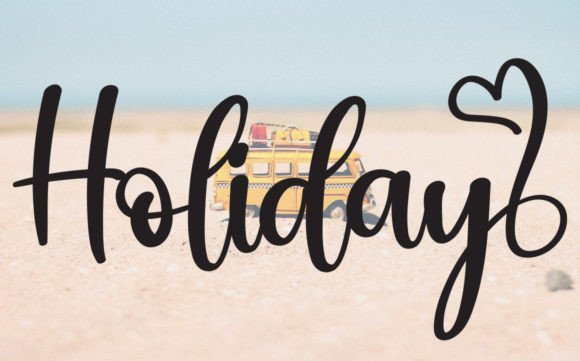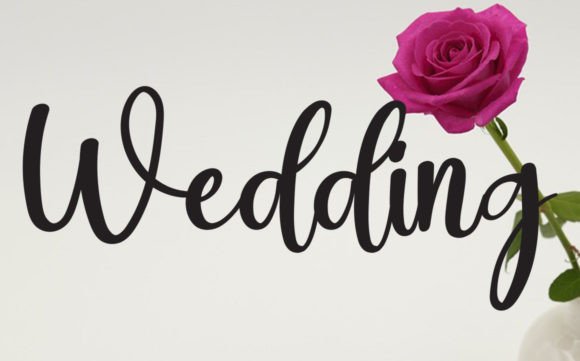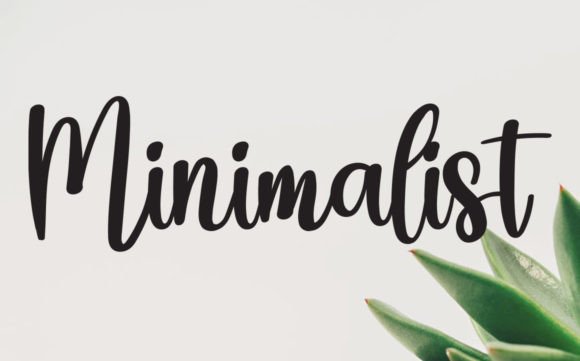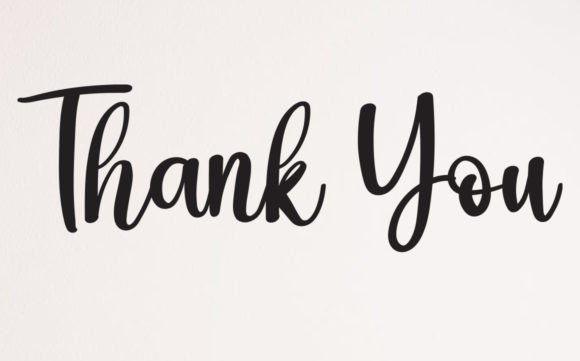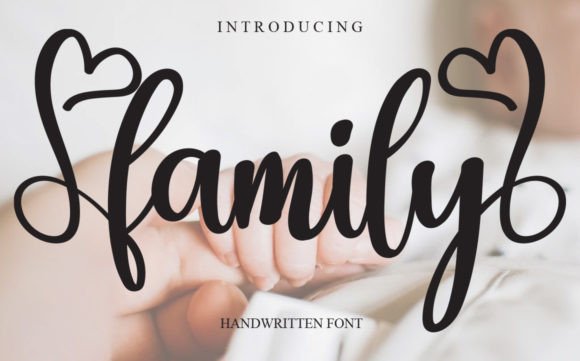
Introducing Family Font: The Sweet and Romantic Handwritten Font for Your Creative Projects
Are you a designer or crafter looking for a font that exudes warmth, love, and elegance? Look no further than Family Font, a beautiful handwritten font that is perfect for a variety of creative projects. With its delicate flow and romantic feel, Family Font is ideal for wall displays, wedding invitations, social media post logos, and any project that requires impressive typography.
What Makes Family Font Special?
Family Font is a unique and charming font that stands out from the crowd. Its sweet and romantic handwritten style is reminiscent of traditional calligraphy, but with a modern twist. The font features a delicate flow that gives it a sense of elegance and sophistication, making it perfect for projects that require a touch of whimsy and romance.
Uses for Family Font
Family Font is a versatile font that can be used for a wide range of creative projects. Here are some ideas to get you started:
• Wedding Invitations: Add a touch of romance and elegance to your wedding invitations with Family Font. The font’s delicate flow and sweet style make it perfect for wedding stationery, including save-the-date cards, wedding programs, and thank-you notes.
• Wall Displays: Create beautiful wall displays with Family Font, perfect for home decor, nursery art, or motivational quotes. The font’s elegant style makes it easy to read and visually appealing.
• Social Media Post Logos: Stand out on social media with eye-catching logos and graphics created with Family Font. The font’s unique style will help you establish a strong brand identity and attract followers.
• Crafting Projects: Family Font is perfect for crafters who love to create handmade cards, gift tags, and other paper crafts. The font’s sweet style adds a personal touch to any project.
Why Designers and Crafters Love Family Font
Designers and crafters love Family Font for its unique style and versatility. Here are some reasons why:
• Elegant Style: Family Font’s delicate flow and sweet style make it a standout font for any project. Its elegant style is perfect for designers and crafters who want to add a touch of sophistication to their work.
• Easy to Read: Despite its elegant style, Family Font is easy to read, making it perfect for body text and captions.
• High-Quality Design: Family Font is designed with high-quality craftsmanship in mind. The font features precise lines and curves, ensuring that it looks great in any size or format.
Tips for Using Family Font
Here are some tips for using Family Font in your creative projects:
• Pair with Other Fonts: Family Font pairs well with other fonts, including sans-serif fonts and script fonts. Experiment with different font combinations to find the perfect look for your project.
• Use for Headings and Titles: Family Font is perfect for headings and titles, where its elegant style can shine. Use it to add a touch of sophistication to your project.
• Experiment with Colors: Family Font looks great in a variety of colors, from soft pastels to bold brights. Experiment with different colors to find the perfect look for your project.
Family Font is a beautiful handwritten font that is perfect for designers and crafters who want to add a touch of elegance and romance to their creative projects. With its delicate flow and sweet style, Family Font is ideal for wall displays, wedding invitations, social media post logos, and any project that requires impressive typography. Try Family Font today and see the difference it can make in your work!